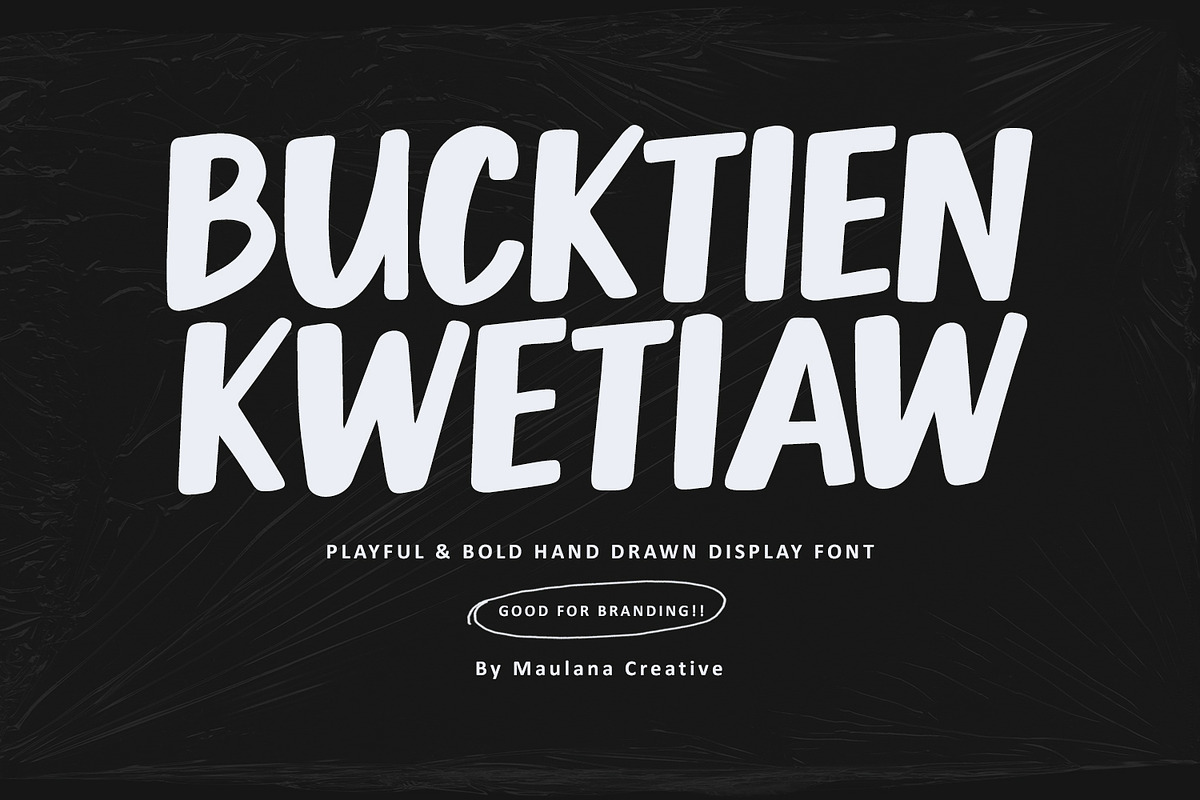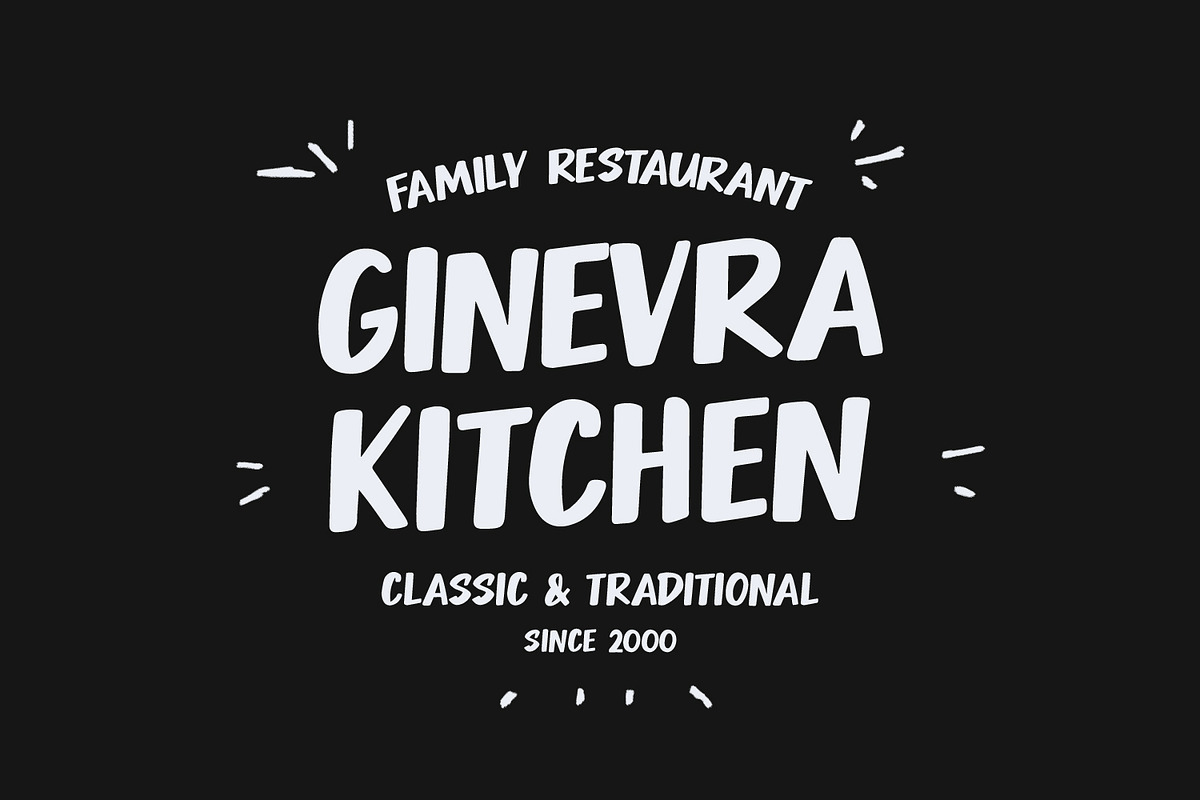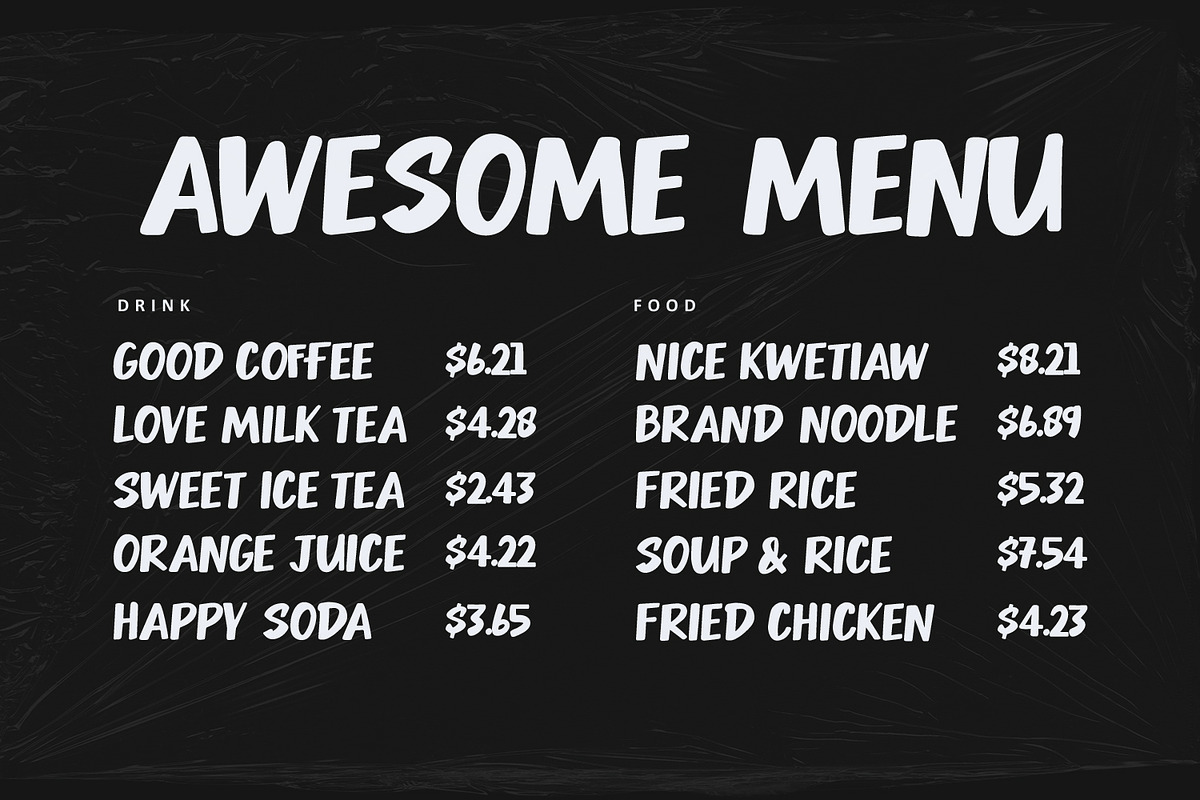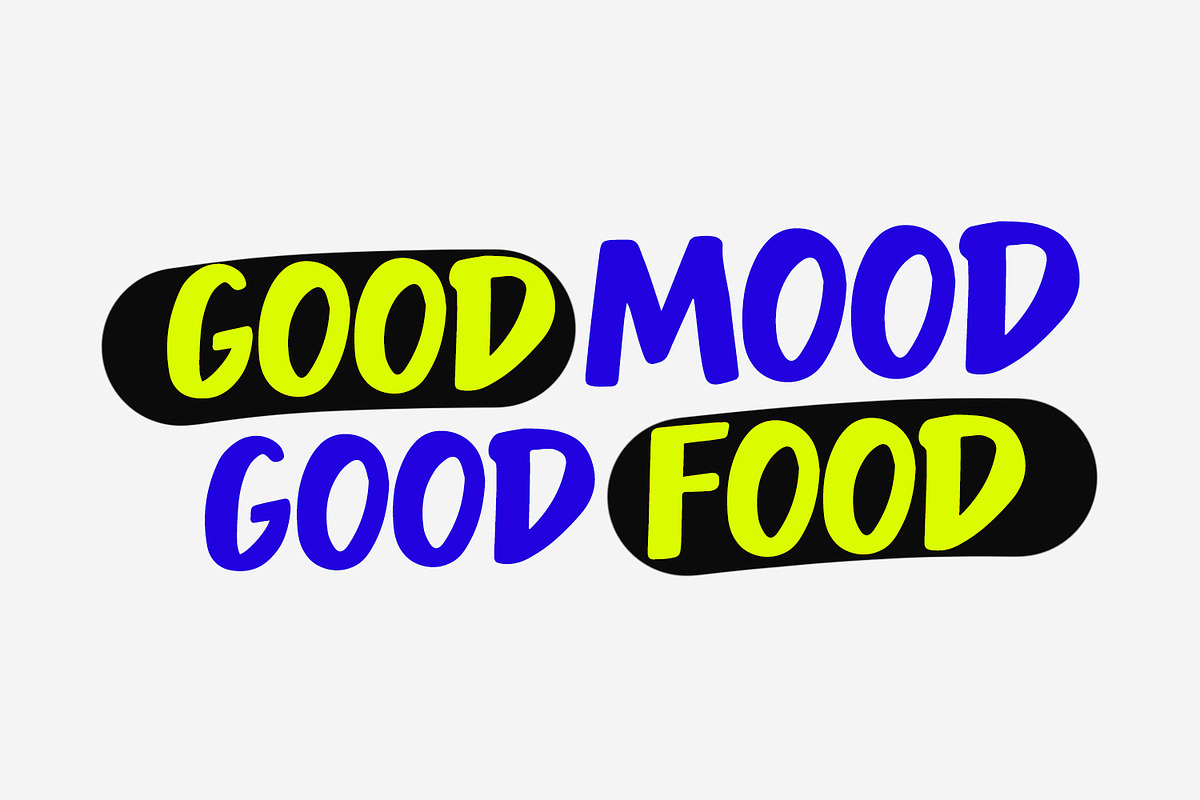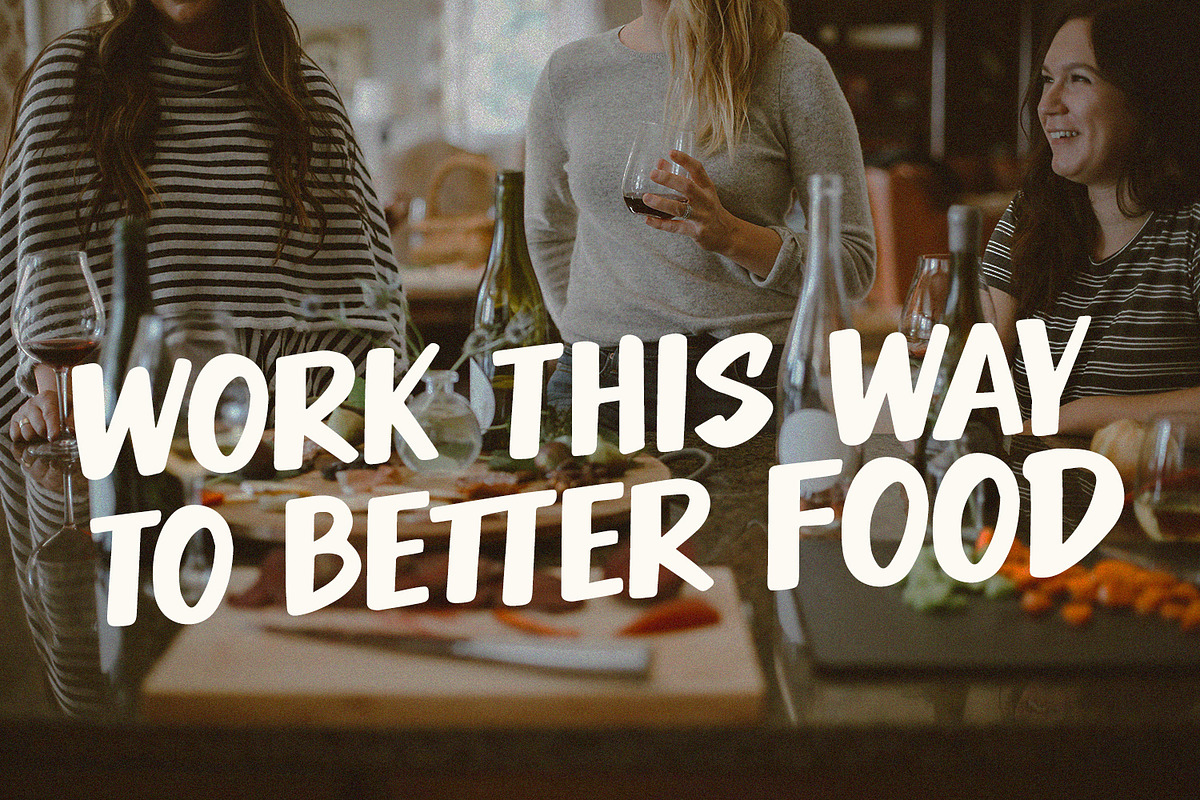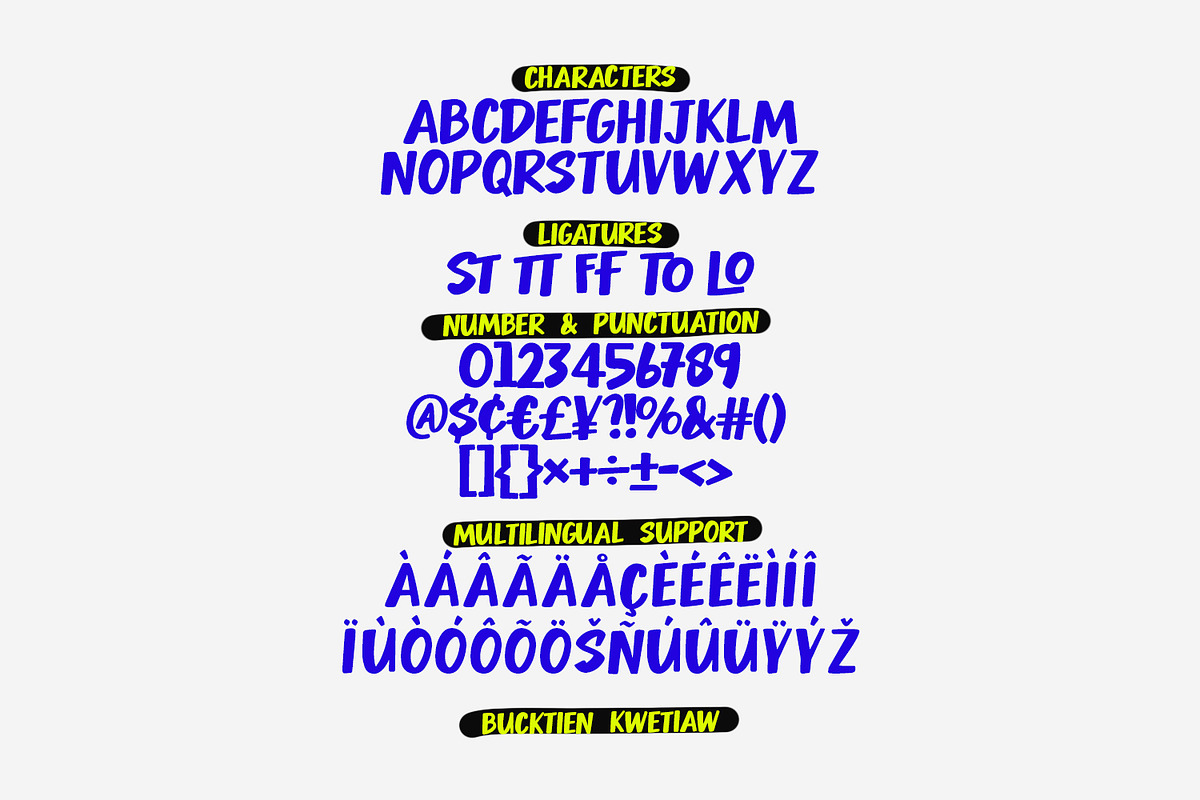
Bucktien Kwetiaw Playful Bold Font
Inject a dose of energy and fun into your designs with Bucktien Kwetiaw, a vibrant display font designed for high-impact branding. Featuring thick, hand-rendered strokes and a charmingly irregular baseline, this font captures a friendly, "pop-art" aesthetic that stands out instantly.
Whether you are working on food packaging, children's book titles, eye-catching social media graphics, or bold awesome designs, Bucktien Kwetiaw provides a handcrafted feel that is both professional and approachable. Its heavy weight ensures maximum readability, making it the perfect choice for logos, and headlines that need to shout!